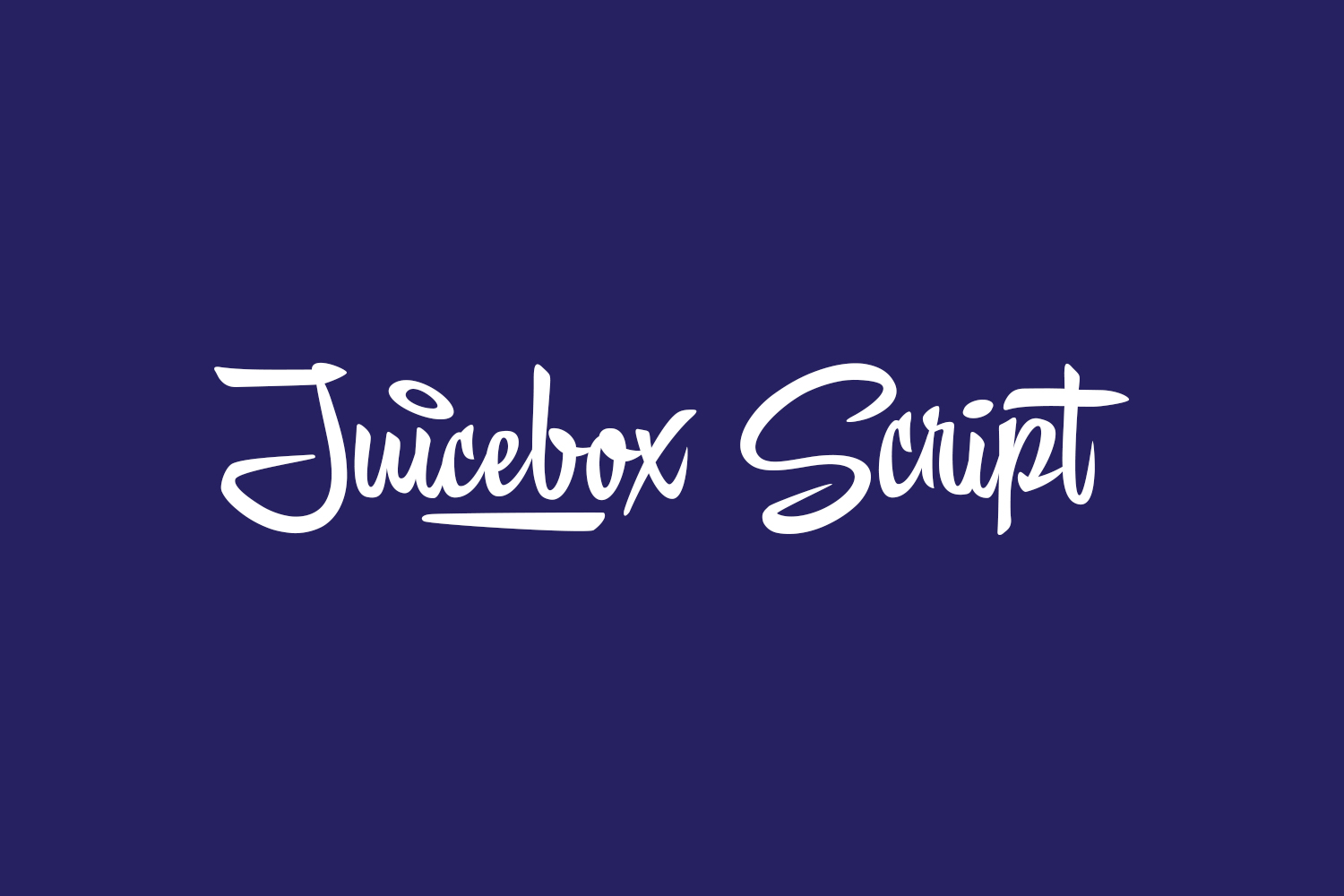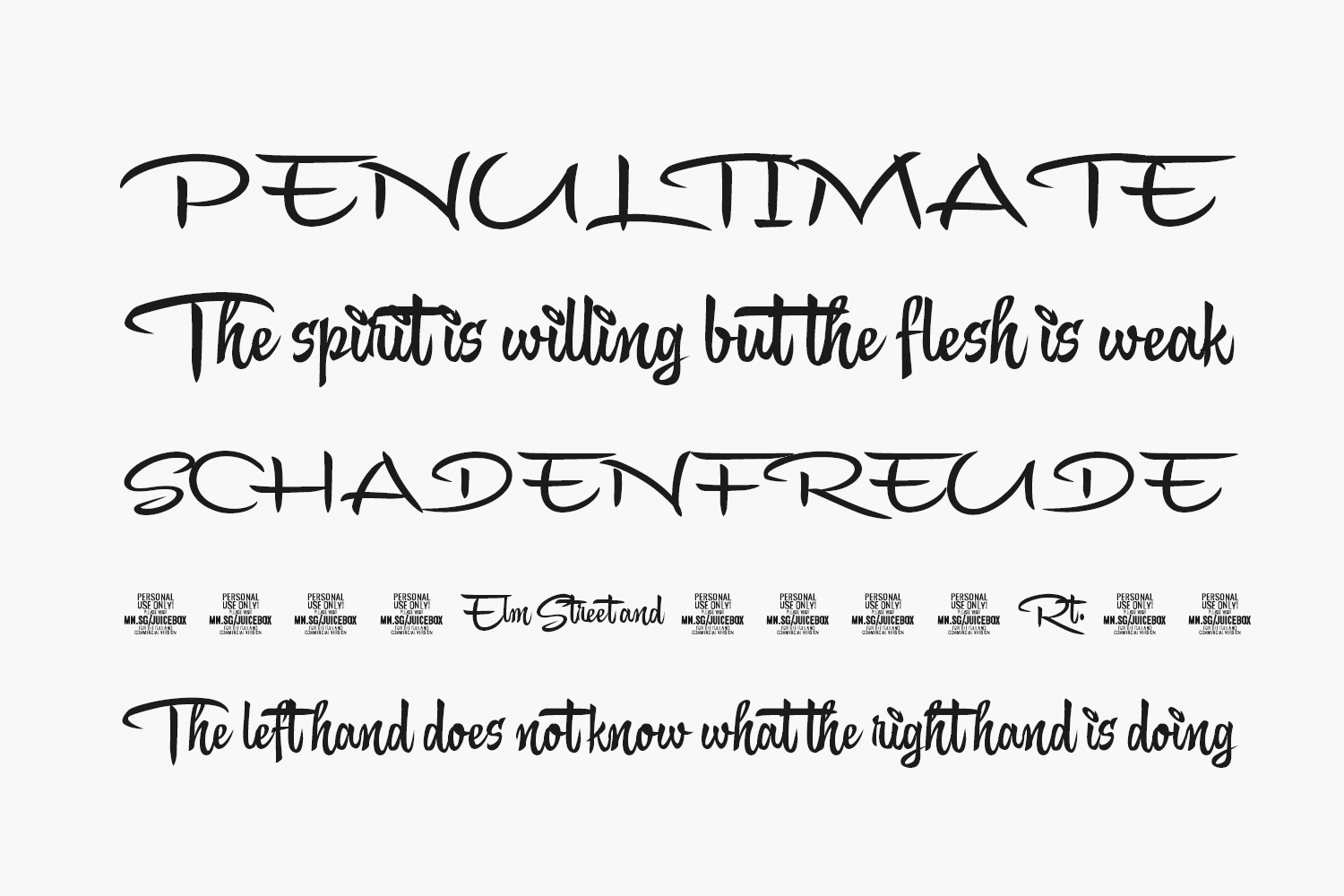
Juicebox Script Free Font – Elegant Handwritten Typeface for Stylish Design
Juicebox Script is a graceful and elegant handwritten script font designed by Måns Grebäck to bring sophistication and warmth to your creative projects. With its smooth strokes, soft curves, and flowing appearance, this free decorative typeface works perfectly for crafting romantic logos, wedding invitations, social media quotes, product labels, and more. Available in OTF format — ideal for designers seeking a stylish script font that blends classic beauty with modern clarity.
Why Choose Juicebox Script?
- Elegant Style: Combines natural handwriting aesthetics with refined detailing for a polished, professional look.
- Ideal for Invitations & Branding: Perfect for RSVP cards, formal stationery sets, or lifestyle brand identities needing a personal touch.
Where to Use Juicebox Script?
Juicebox Script shines across a variety of design applications:
- Logos & Branding: Adds charm to brand kits for fashion labels, luxury brands, or boutique studios needing a warm tone.
- Social Media Quotes: Creates bold text overlays for Instagram Stories, Pinterest pins, TikTok videos, and YouTube banners.
- Packaging Design: Brings elegance to product labels on candles, perfumes, beverages, or handmade goods requiring a premium style.
- Wedding Invitations: Enhances formal stationery sets, envelopes, and bridal name typography with a romantic appeal.
- Editorial Headers: Stands out in blog headers, magazine covers, and digital banners with a human touch.
Design Tips with Juicebox Script
To get the most from Juicebox Script, pair it with minimalist sans-serif fonts like Modern Sans Serif 7 or Astonpoliz for contrast and readability. Use this font at large sizes to highlight its expressive swashes and organic flow. For print work, apply it over textured paper or combine with gold accents to enhance its vintage appeal. Try our interactive font preview tool below to test Juicebox Script with your own text before downloading!
- Glyphs: Uppercase (A-Z), lowercase (a-z), numerals, punctuation, and basic special characters.
- Language Support: English, Spanish, French, German.